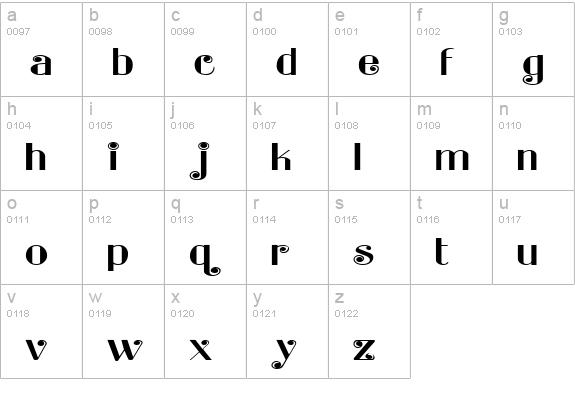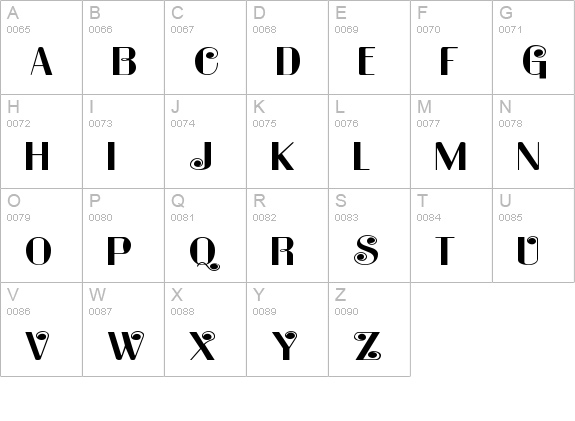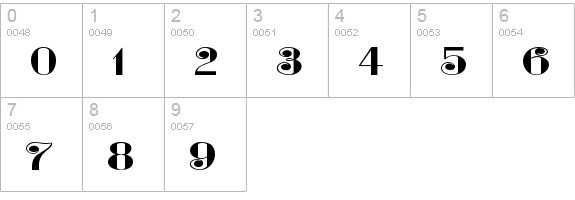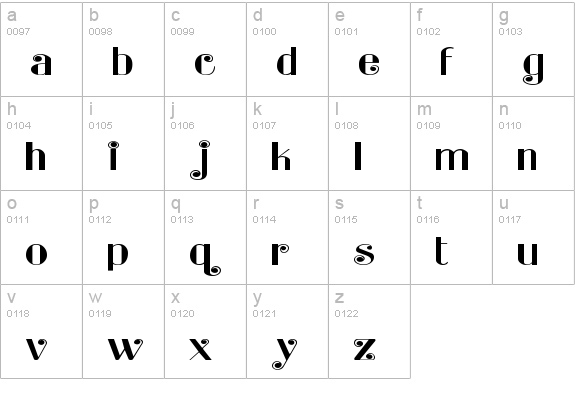
Ladybug Regular is the standard, neutral variant in the Ladybug typeface family \xE2\x80\x94 well suited to general body text, paragraphs, and standard typographic work.
Ladybug Regular font is a charming and whimsical typeface that will add a touch of playfulness to any design project. With its rounded edges and friendly curves, this font captures the spirit of a ladybug, evoking feelings of joy and lightheartedness. Perfect for a variety of creative endeavors, Ladybug Regular can be used in both personal and commercial projects. Whether you're designing a birthday invitation, creating a logo for a children's brand, or crafting a fun social media post, this font will bring a delightful and endearing element to your work. One of the best things about Ladybug Regular font is that it is free! Yes, you read that right. This amazing font is freely available to download at FontsMarket.com. This means that you can easily access and use this font without any cost. It's a fantastic opportunity to enhance your designs with a charming typeface without breaking the bank. So why wait? Download Ladybug Regular font today from FontsMarket.com and let its cheerful and whimsical nature bring your designs to life. Whether you're a professional designer or someone who wants to add a touch of creativity to their personal projects, this font is sure to become a favorite in your collection. Enjoy the beauty of Ladybug Regular font and let your imagination take flight.